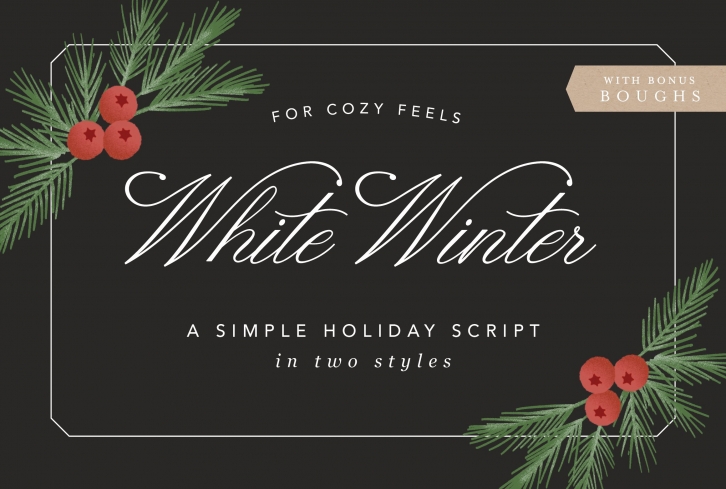
White Winter, a Christmas Script FONT Download
White Winter is a southern inspired script that is dripping with romance and cozy charm. Perfect for Christmas cards, holiday flyers, and custom stationery.